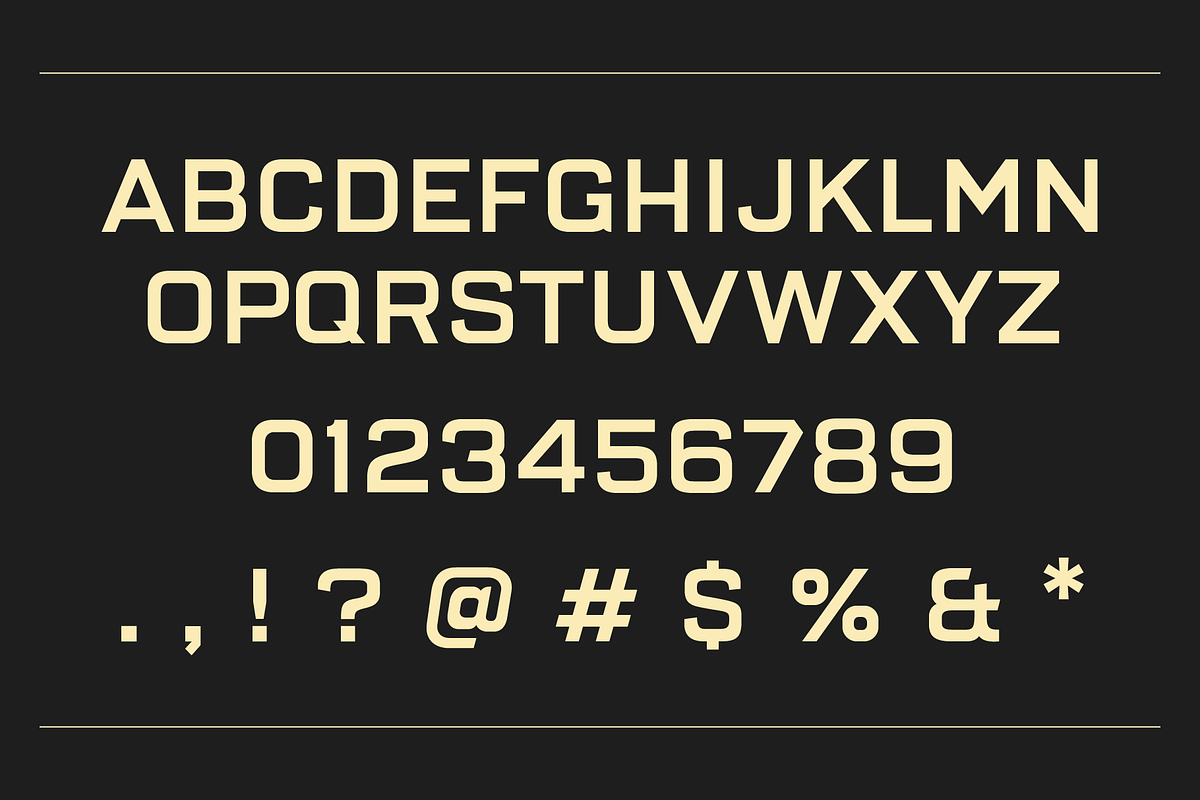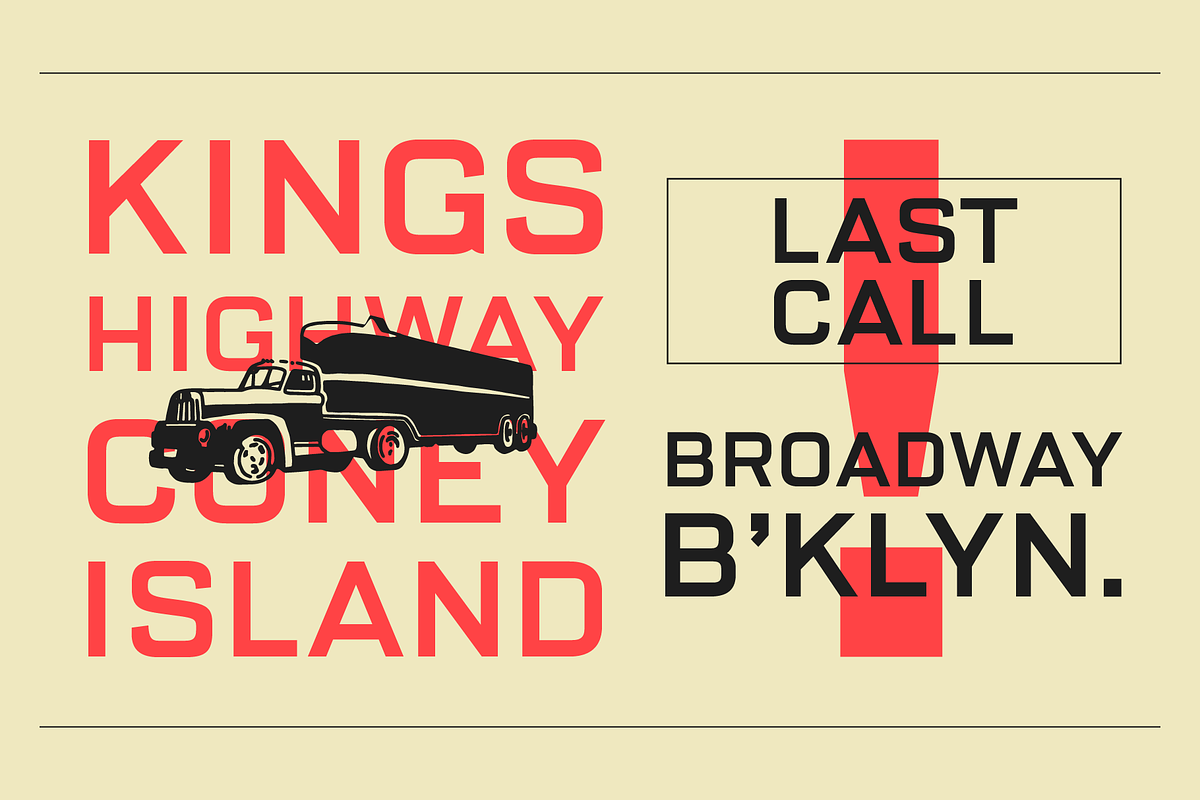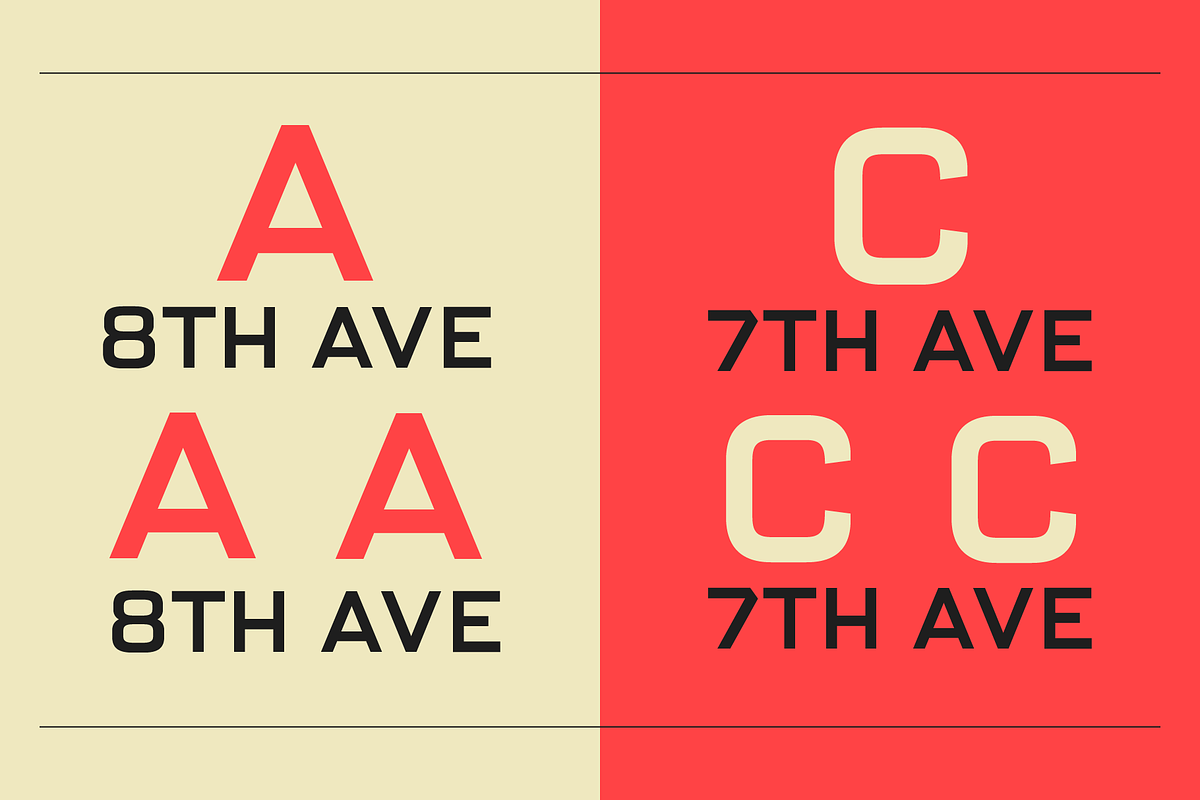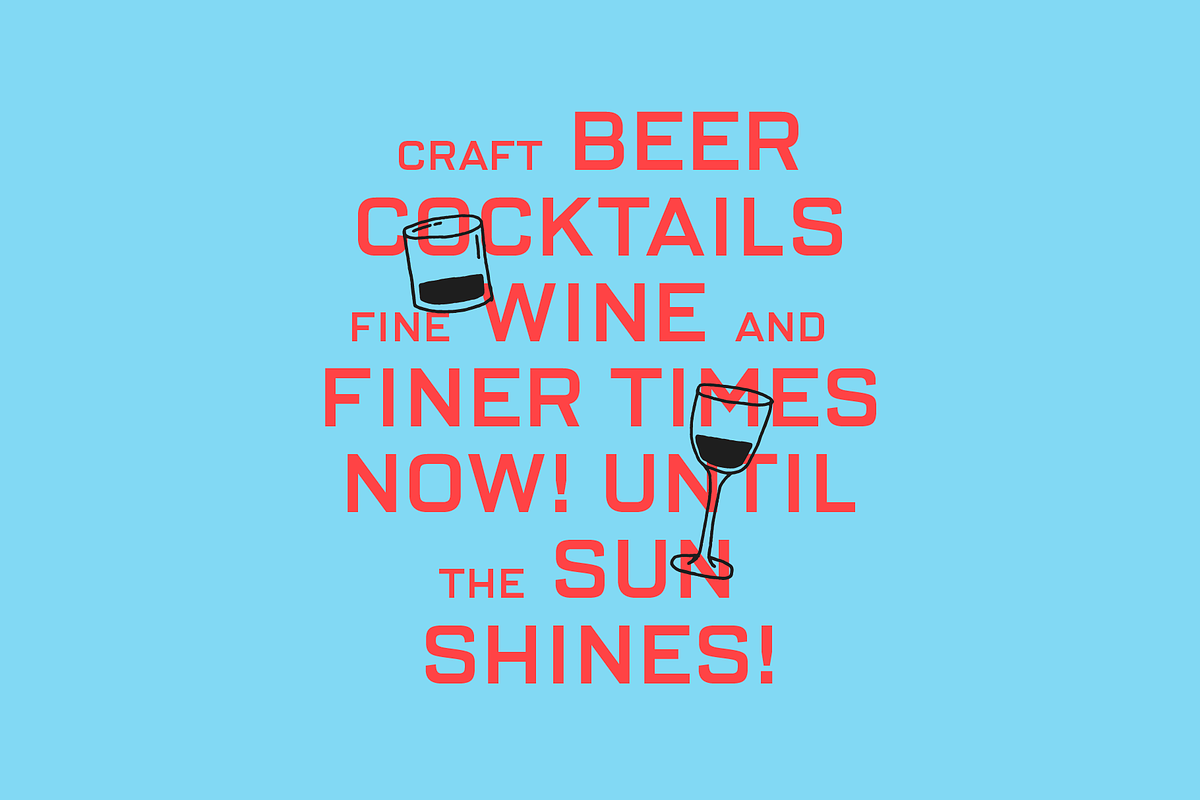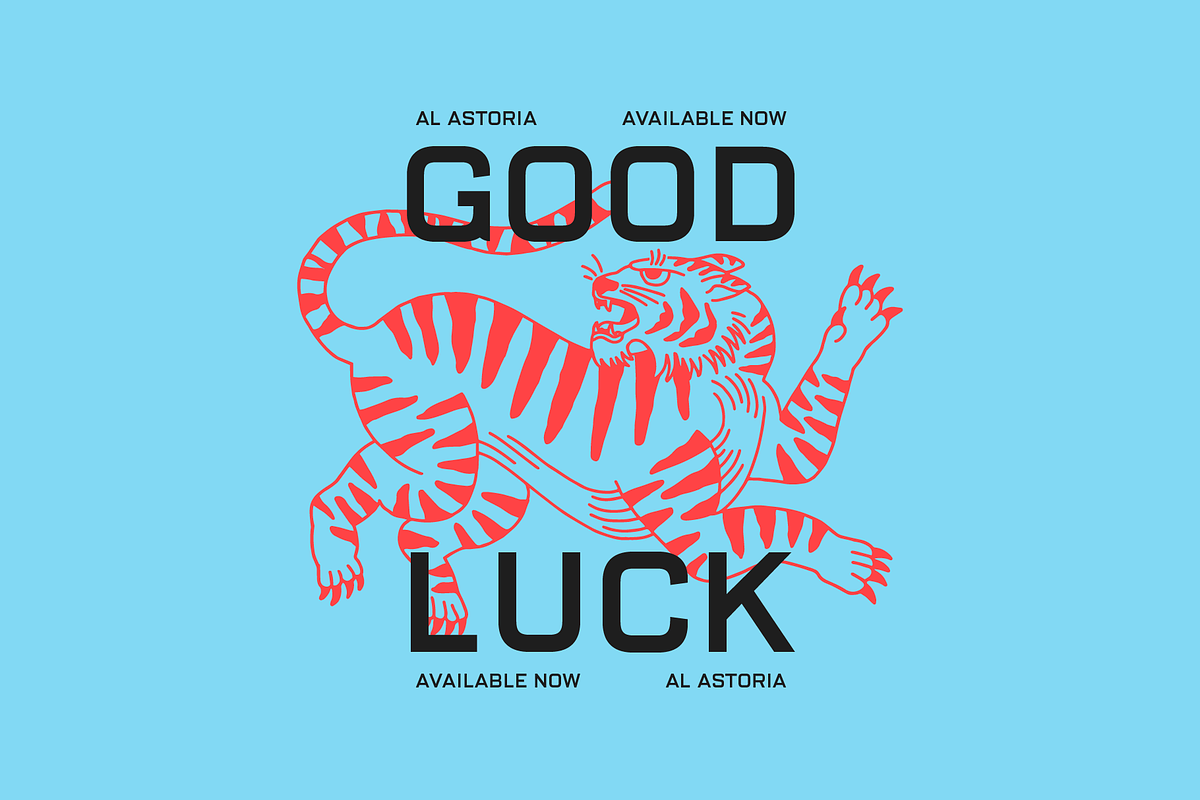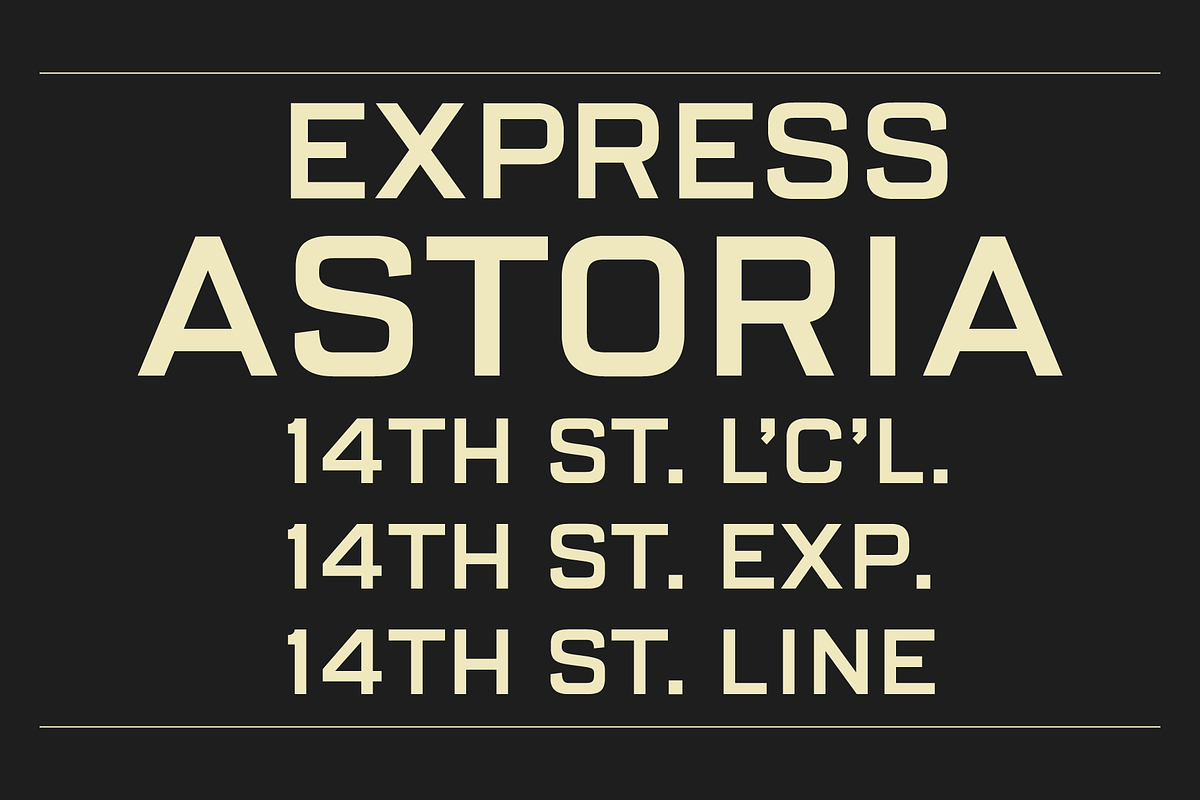
AL Astoria
Before the days of digital, handlettered scrolls were used in New York City’s subway system to display routes and destinations. These subway scrolls have a quirky, blocky style that Astoria sought to mimic.
Astoria adds a blocky, sturdy and vintage feel to brand identities, print graphics or whatever you're designing! Perfect for a collegiate or athletic feel — or leaning into an industrial manufacturing vibe.